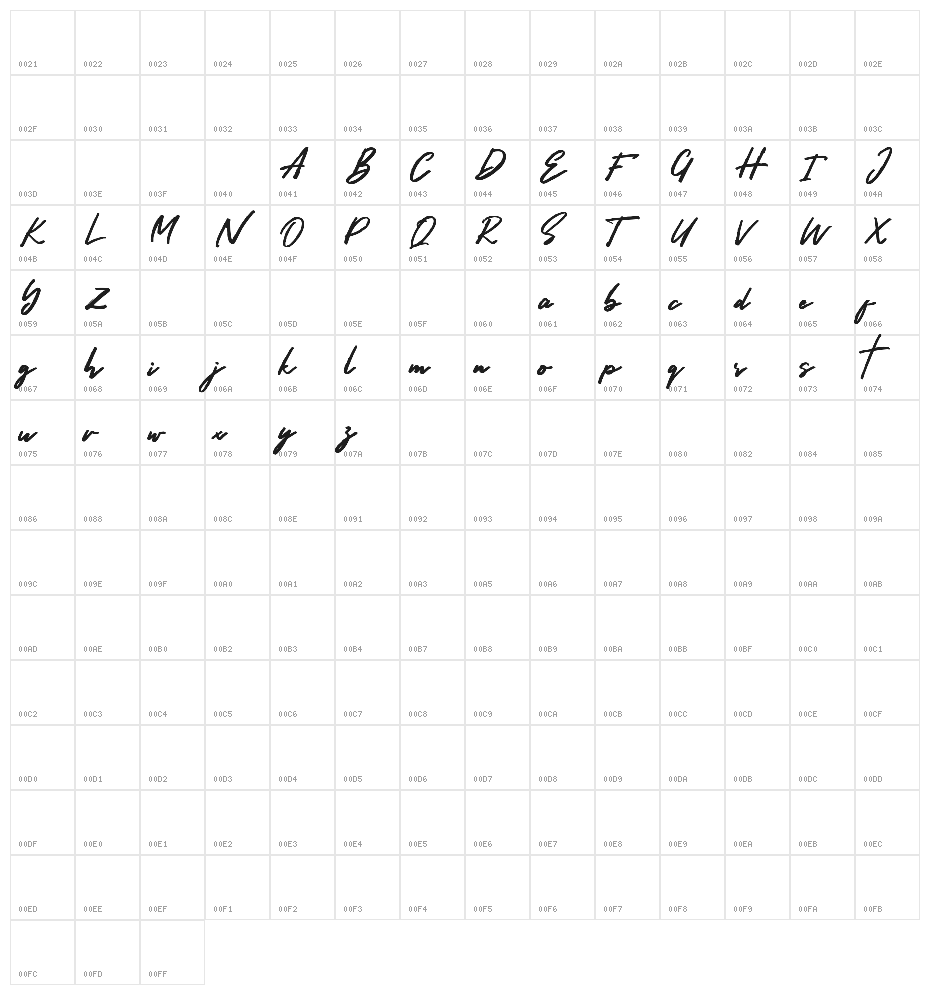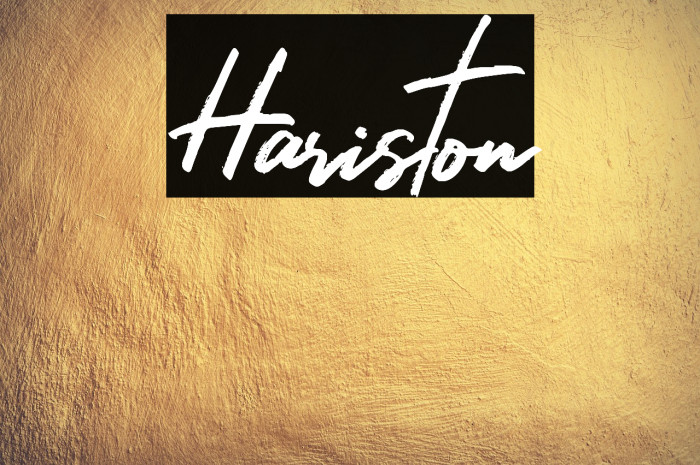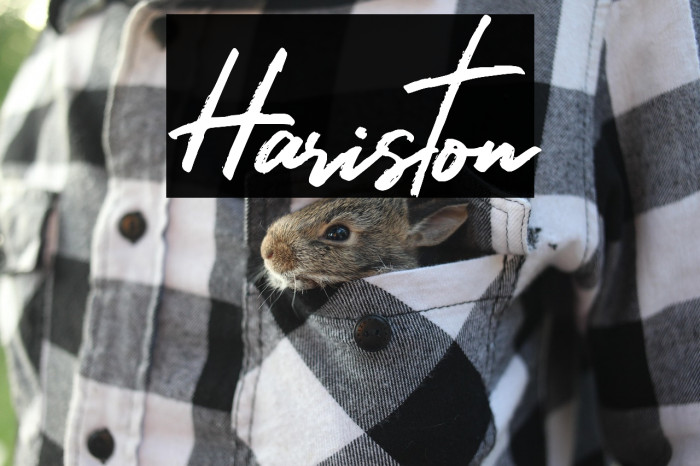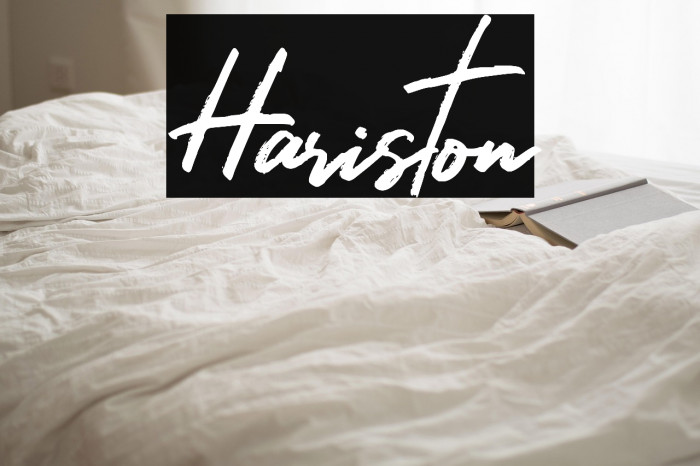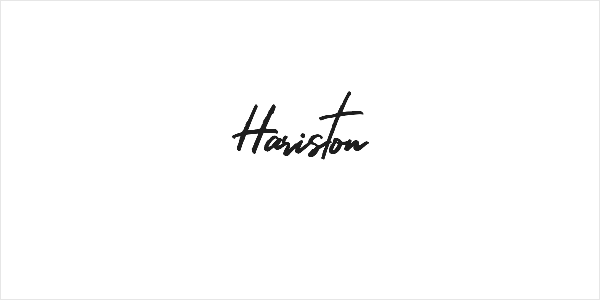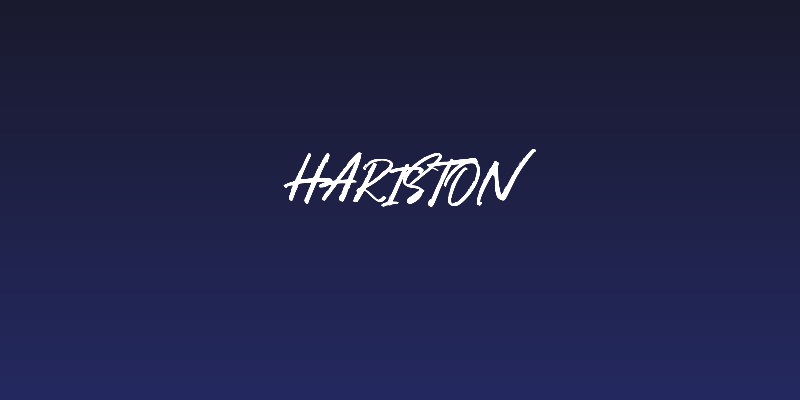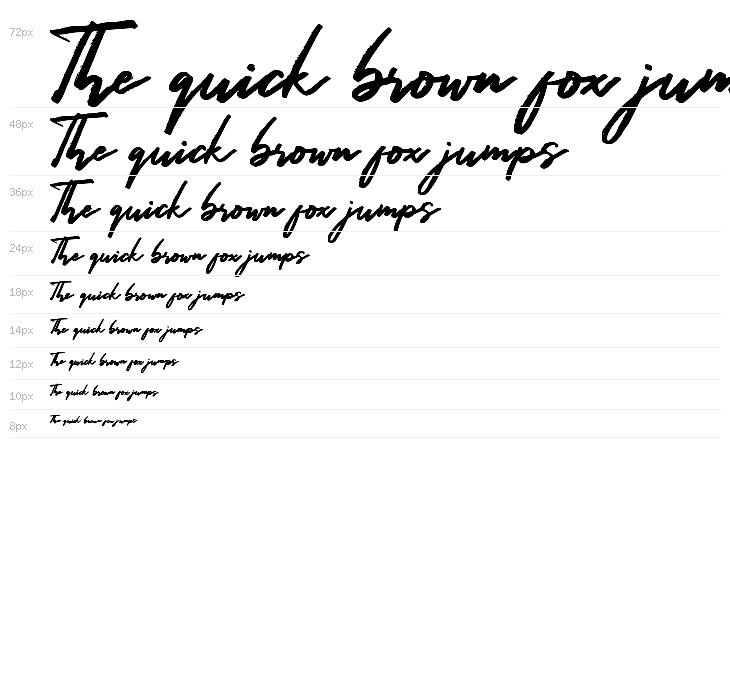
Hariston Font
Hariston Description
This font exudes a dynamic and expressive style, characterized by its fluid and cursive script. The letters are interconnected, creating a seamless flow that mimics natural handwriting. The strokes vary in thickness, adding a lively and personal touch to the text. The uppercase letters are bold and prominent, while the lowercase letters maintain a consistent rhythm, enhancing readability. This font's organic and artistic appearance makes it suitable for projects that aim to convey elegance and creativity.